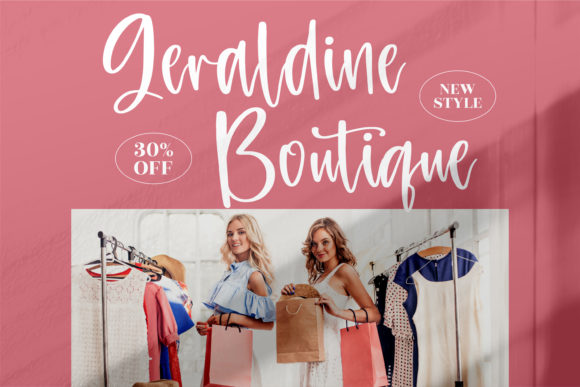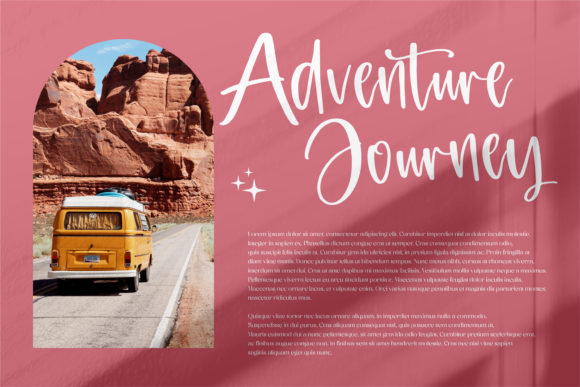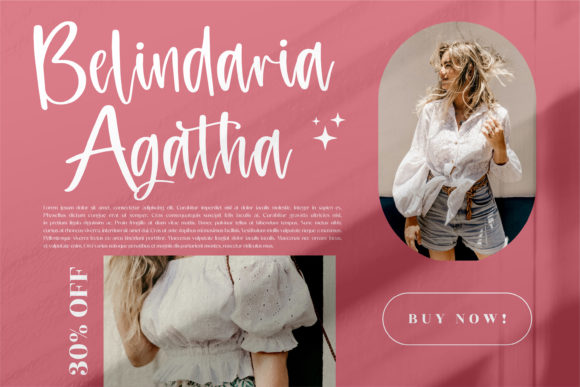
Introduction to Mastelo Font
Mastelo is an elegant script font with a contemporary atmosphere and impeccable form, inspired by timeless classic calligraphy.
Not too thin and not too thick, balanced and varied, this font was designed to enhance the beauty of your projects .